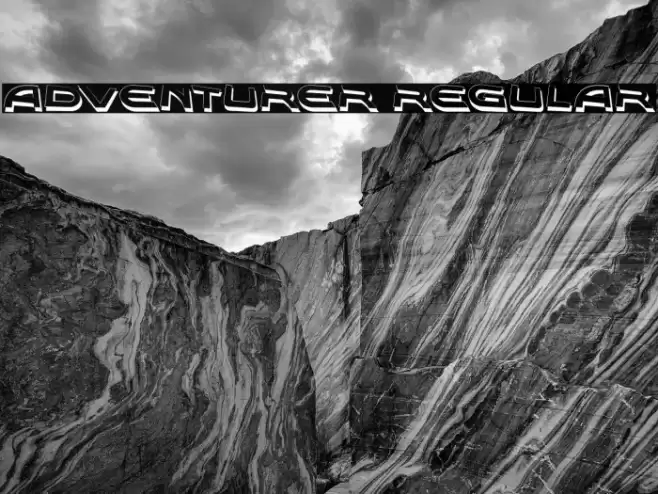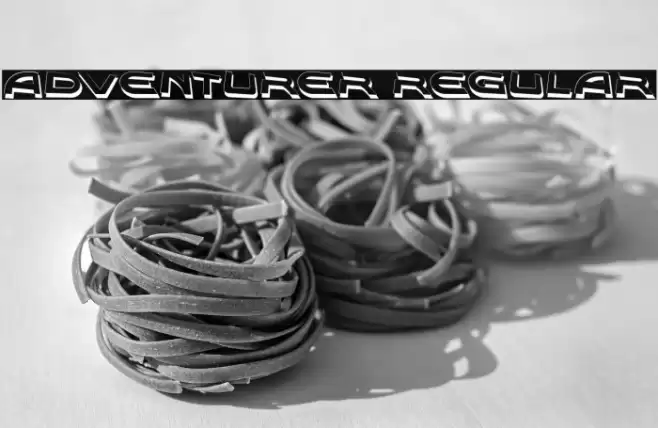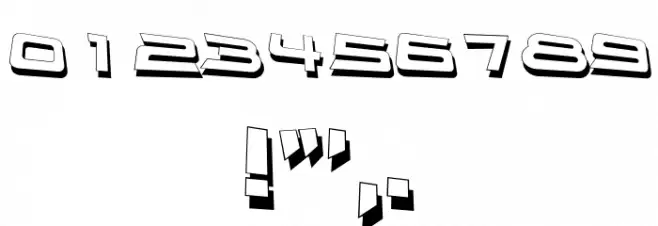
Adventurer Regular Font
Adventurer Regular Description
This font features a bold, adventurous style with a three-dimensional effect that gives it a dynamic and eye-catching appearance. The characters are uppercase and have a strong geometric structure, with sharp angles and clean lines. The shadow effect adds depth, making it suitable for designs that require a sense of movement or excitement. The font is consistent in its boldness, providing a uniform look across all characters. It is ideal for projects that need a standout display font with a modern twist.
A bold, three-dimensional font with a dynamic and adventurous style from Regular fonts.
- Proposed Projects: Ideal for posters, video game titles, adventure-themed branding, and eye-catching headlines.